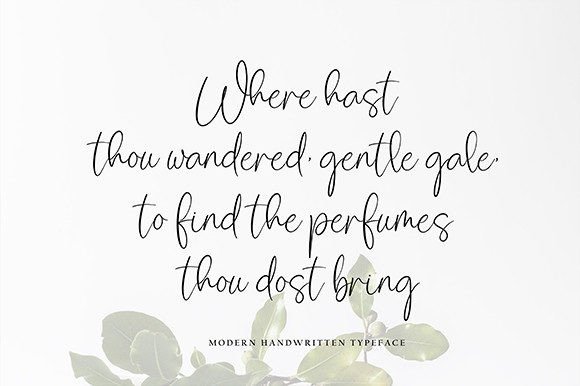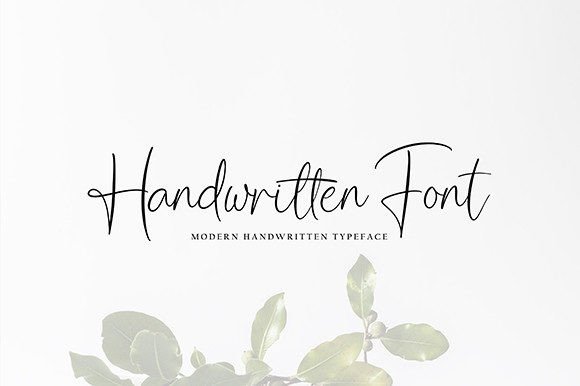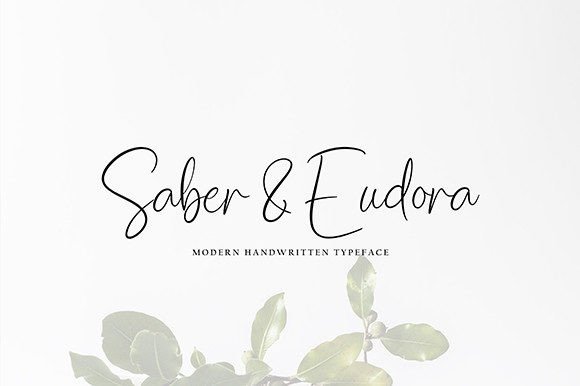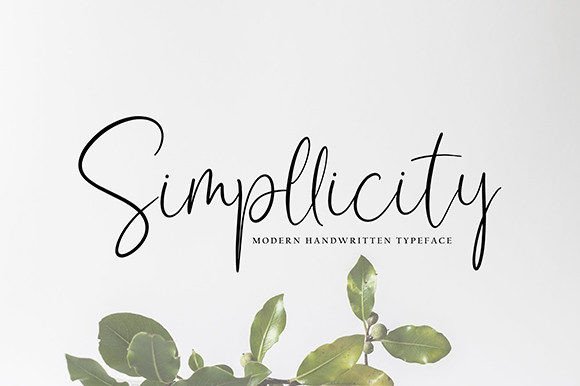
Introduction to Simpllicity Font
Simpllicity is a stylish handwritten script font with an authentic and casual feel.
Key Features of Simpllicity Font
Why Choose Simpllicity Font?
Simpllicity Font offers exceptional quality and versatility, making it a valuable addition to your design toolkit. Whether you’re creating for personal projects or commercial use, Simpllicity Font delivers professional results.